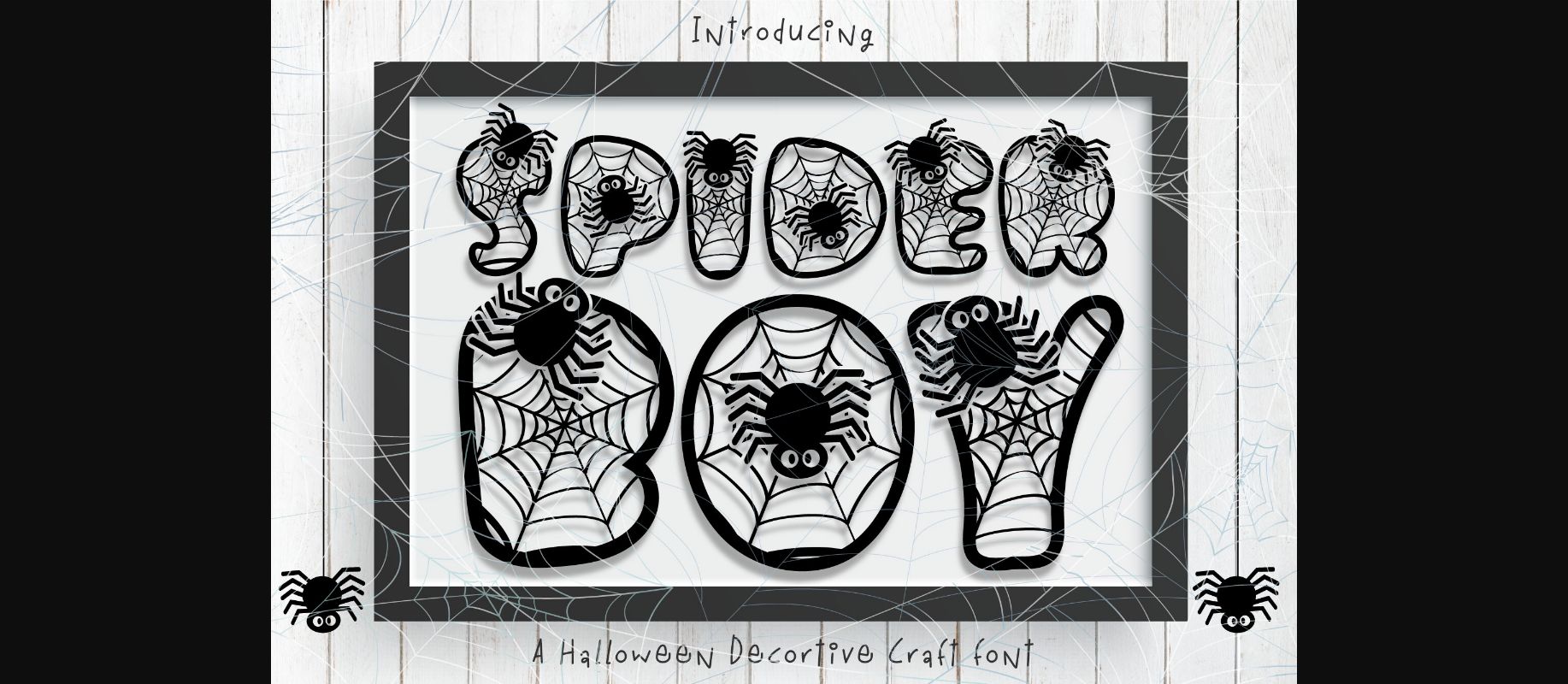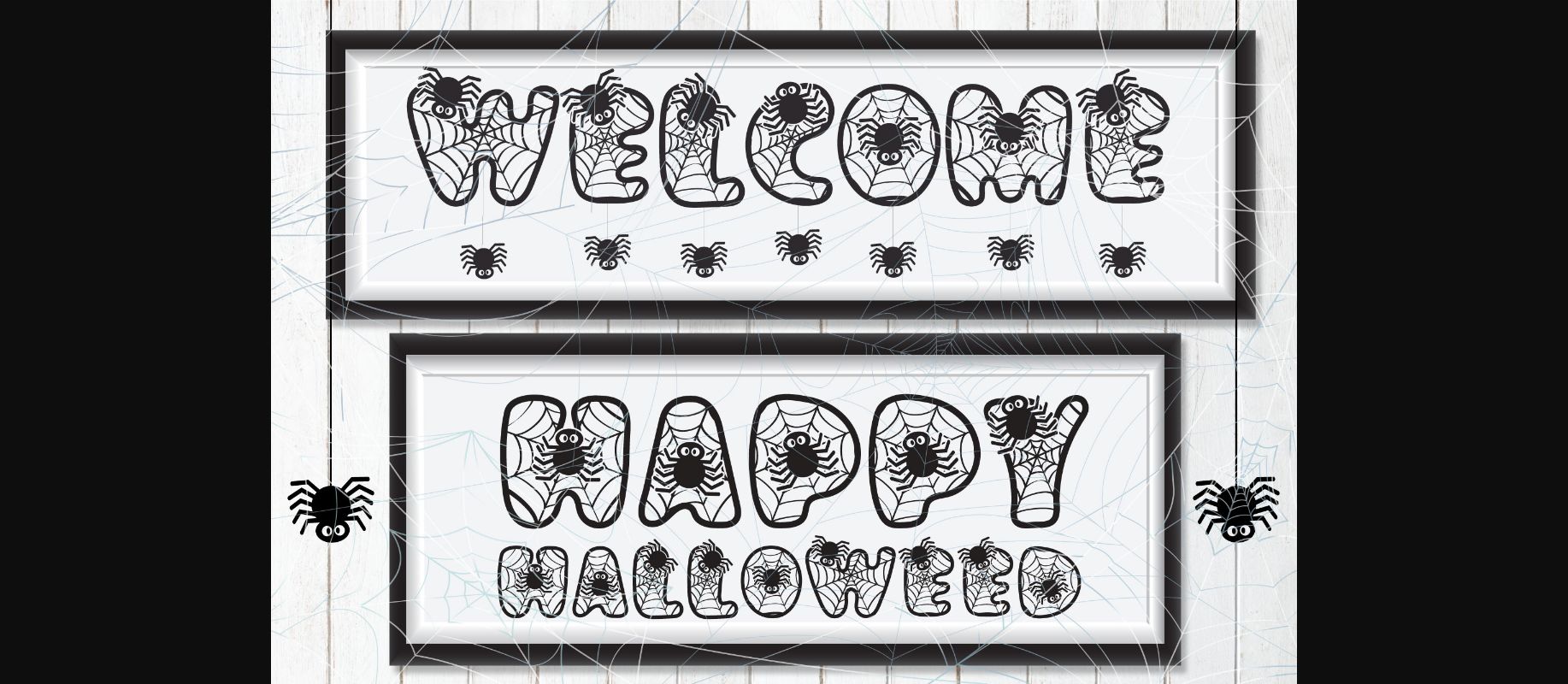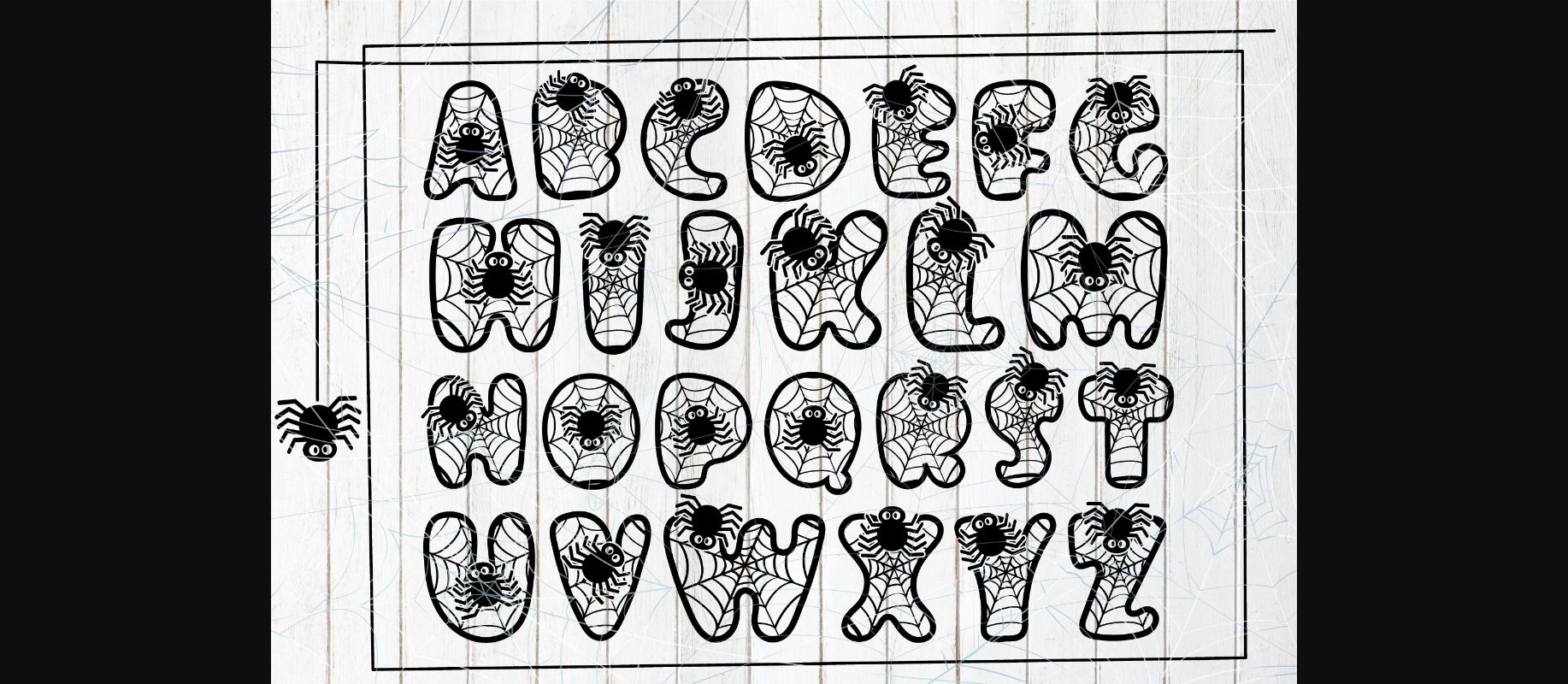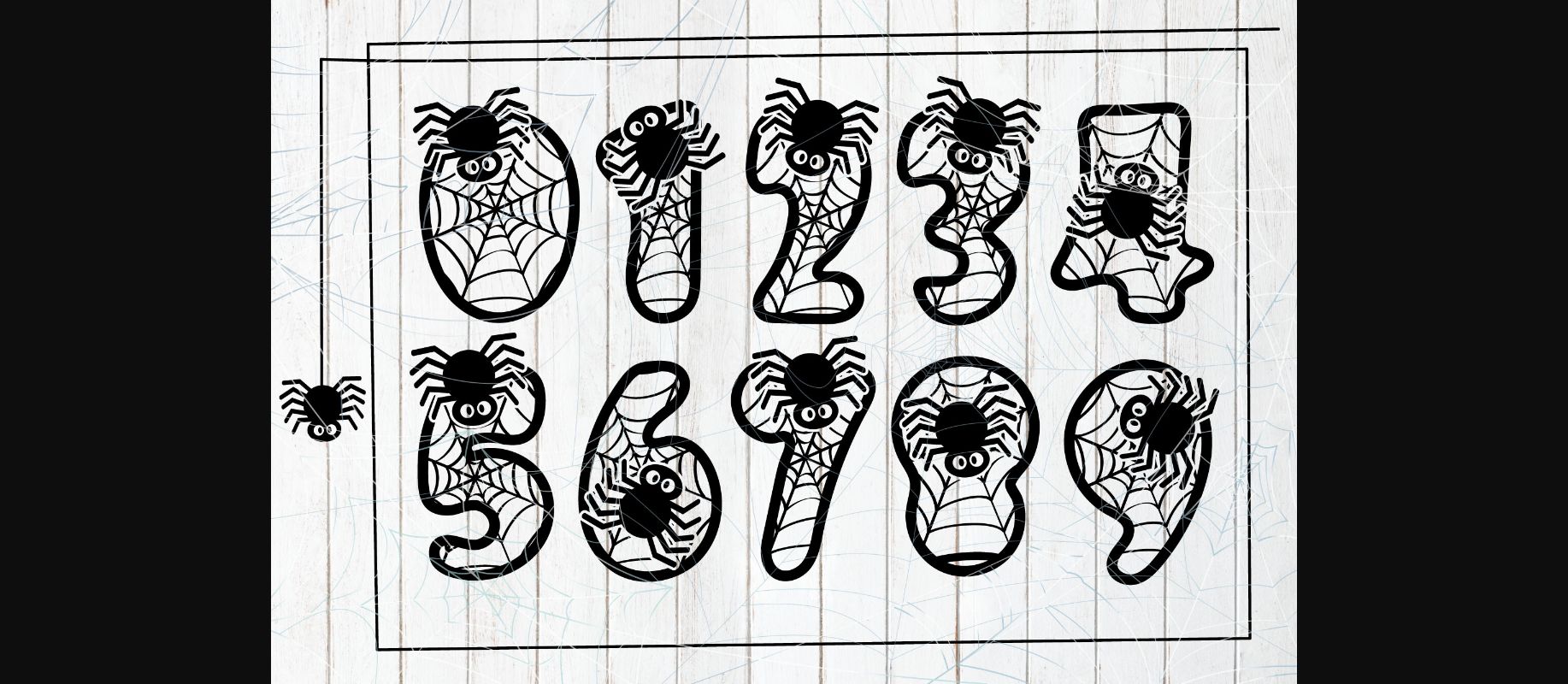
Spider Boy Font
About Spider Boy Font
Spider Boy is a captivating blend of elegance and arachnid-inspired charm. Perfect for Halloween crafts, this unique typeface weaves intricate web-inspired characters into every letter. Craft spooky delights and eerie designs that capture the mystique of the season.